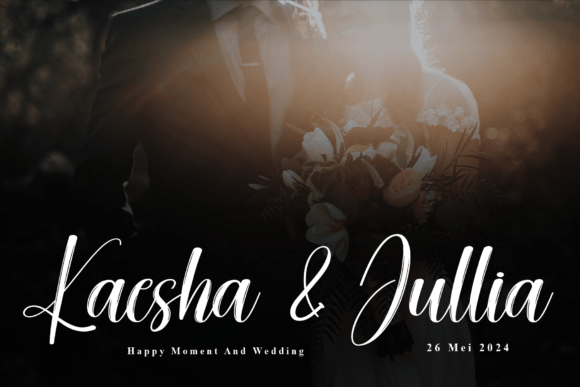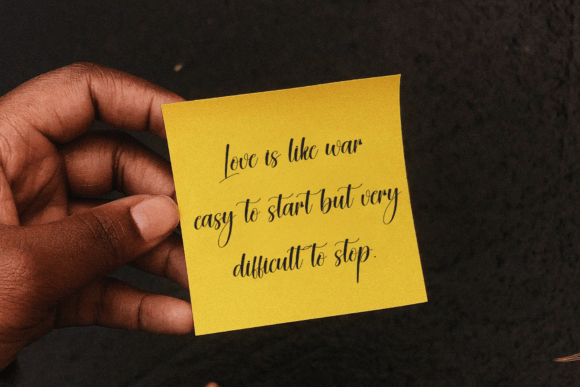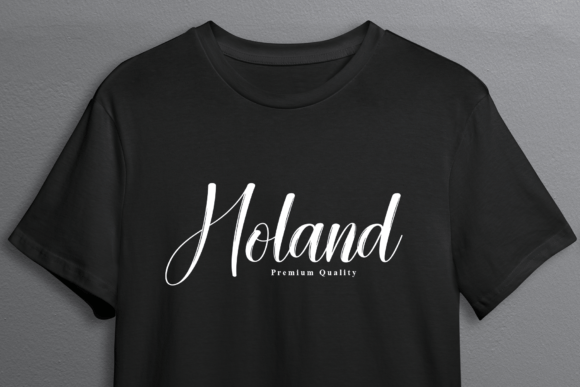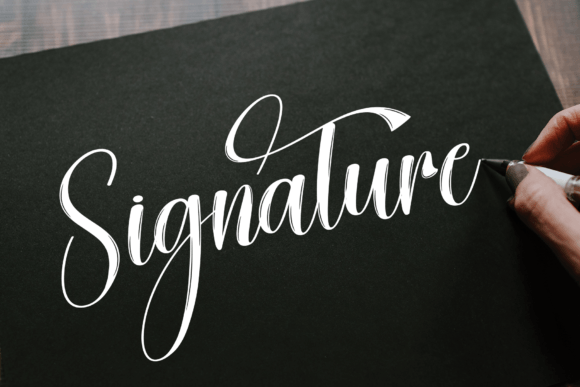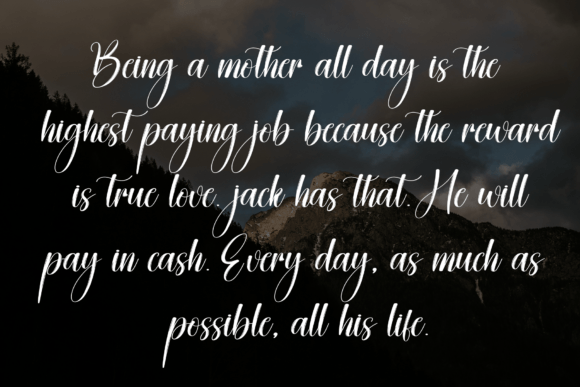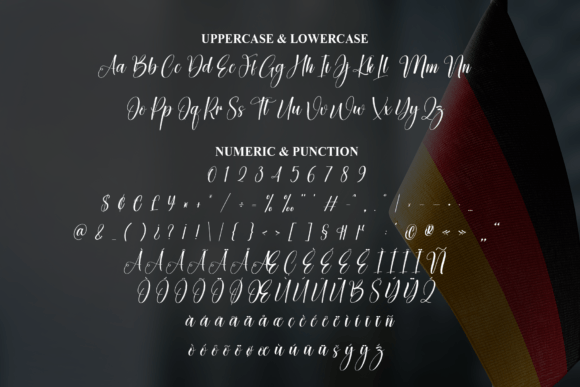
Introduction to Deutsch Font
Deutsch is a cute and casual handwritten font that brings a delightful touch to any project.
With its playful curves and friendly character, itโs ideal for greeting cards, whimsical branding, and cozy invitations Add a sweet, personal flair to your designs with this charming typeface.